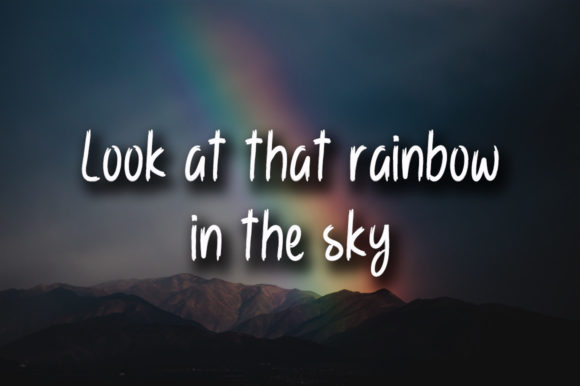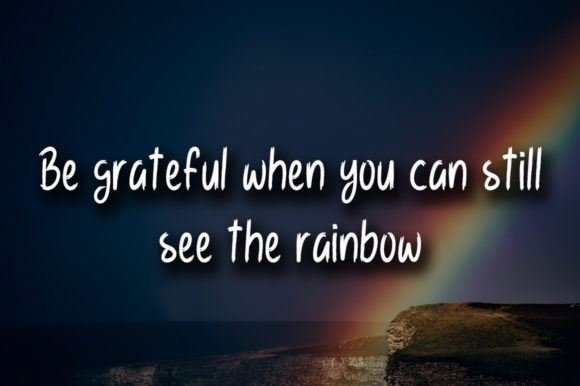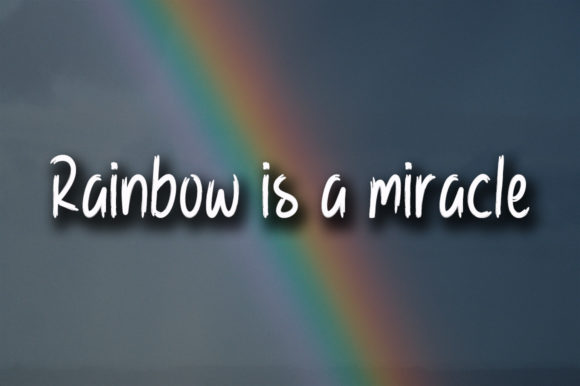
Introduction to Rainbow Love Font
As a designer, have you ever found yourself staring at a blank canvas, unsure of where to start your next creative project? The spark of inspiration can strike at any moment, and when it does, you want to be prepared. That’s exactly what happened to me when I discovered the Rainbow Love Font – a sweet and friendly handwritten font that instantly captured my heart.
With its natural and unique style, the Rainbow Love Font is the perfect addition to any design project. Its versatility makes it a valuable resource for designers, allowing them to bring their creative visions to life with ease. Whether you’re working on a high-quality digital design or a free download for a community project, this font is sure to add a touch of personality and whimsy to your work.
From transparent backgrounds to intricate illustrations, the Rainbow Love Font is a game-changer for designers looking to elevate their designs. In this article, we’ll dive deeper into the world of this amazing font and explore its many uses and benefits.
Key Features of Rainbow Love Font
• High-quality, unique font design ideal for creative projects requiring a touch of personality.
• Unique characteristics include vibrant, colorful letters and a playful, whimsical feel.
• Perfect for use in digital art, graphic design, and other creative projects where a bold, eye-catching font is desired.
Honest Review: Rainbow Love Font
As a designer, I’ve had the pleasure of working with numerous fonts, but the Rainbow Love Font caught my eye. Its vibrant colors and playful design make it an ideal choice for creative projects that require a touch of whimsy. The font’s transparent background is a bonus, allowing for seamless integration into designs.
Here are some aspects where the Rainbow Love Font shines: ✨
• High-quality design: The font’s vector format ensures crisp and clear rendering, making it perfect for both digital and print projects.
• Customizable: The font’s versatility allows designers to experiment with different color combinations, making it an excellent choice for creative projects.
However, there are some limitations to consider: ⚠️
• Limited font styles: The font only comes in a few styles, which may limit its use in more complex designs.
• Not suitable for formal projects: The font’s playful design may not be suitable for formal or professional projects, making it better suited for creative or informal designs.
Overall, I’m impressed with the Rainbow Love Font. While it may have some limitations, its high-quality design and free download make it an excellent resource for designers looking to add a touch of whimsy to their projects.
Rainbow Love Font
The Rainbow Love Font is a free design resource perfect for creative projects that need a touch of color and love. This high-quality font features a transparent background, making it easy to customize and blend with your design.
To get the most out of the Rainbow Love Font, experiment with different font sizes, colors, and styles. You can also use it in combination with other design elements, such as graphics and textures, to create a unique and eye-catching design.
The Rainbow Love Font is perfect for creative projects, such as:
• Wedding invitations and decorations
• Birthday party invitations and decorations
• Children’s book illustrations
• Graphic design projects